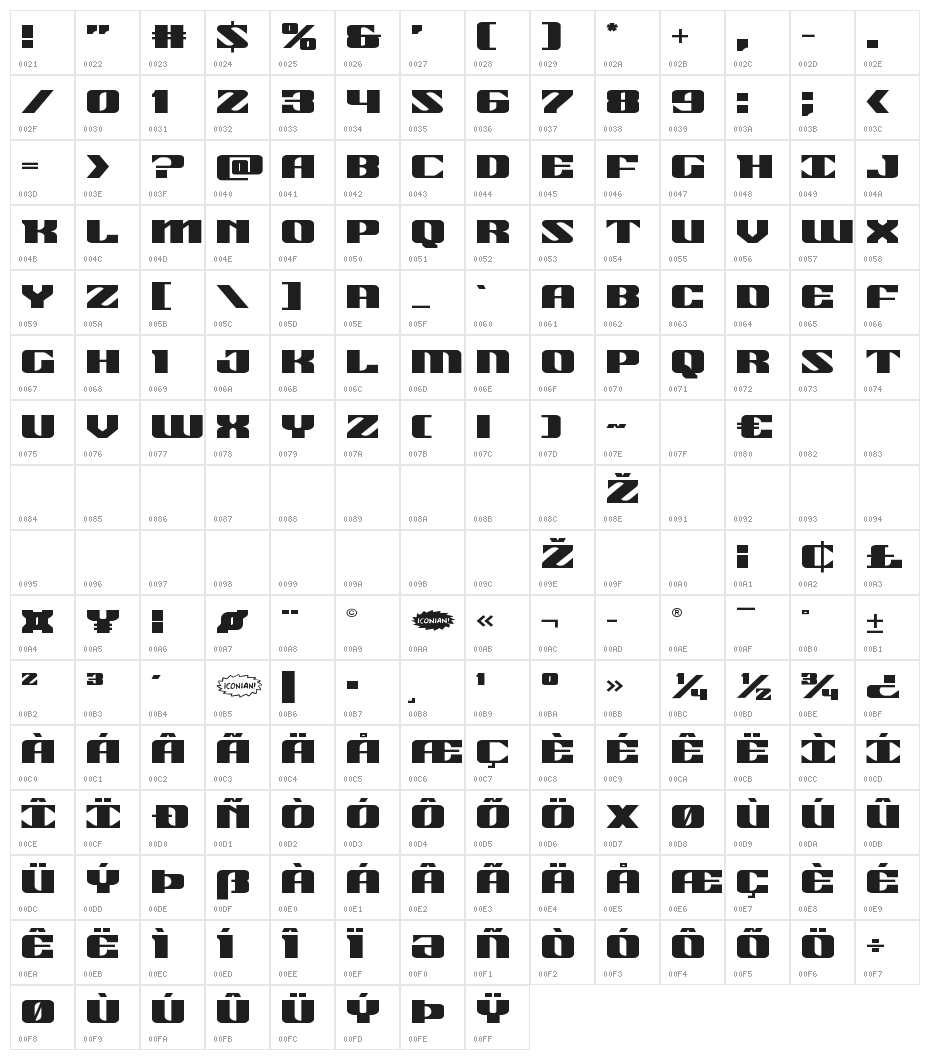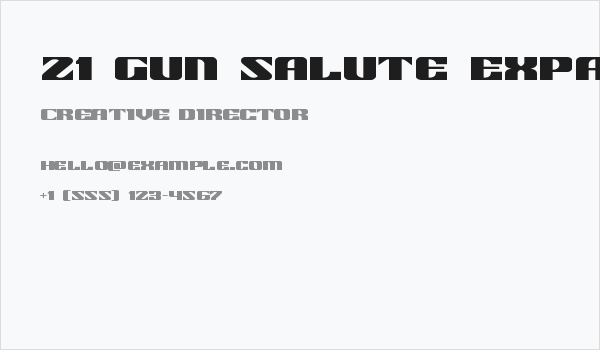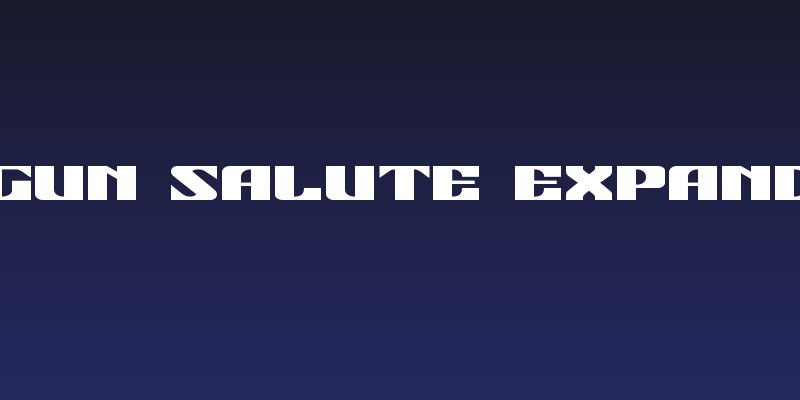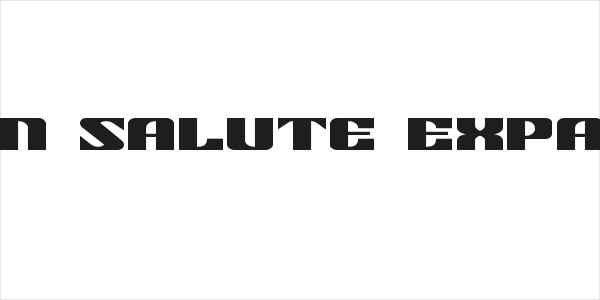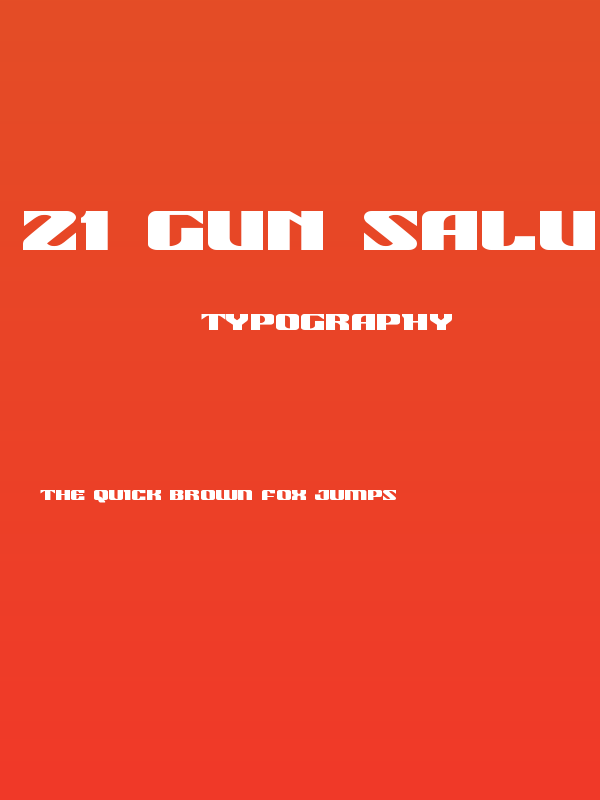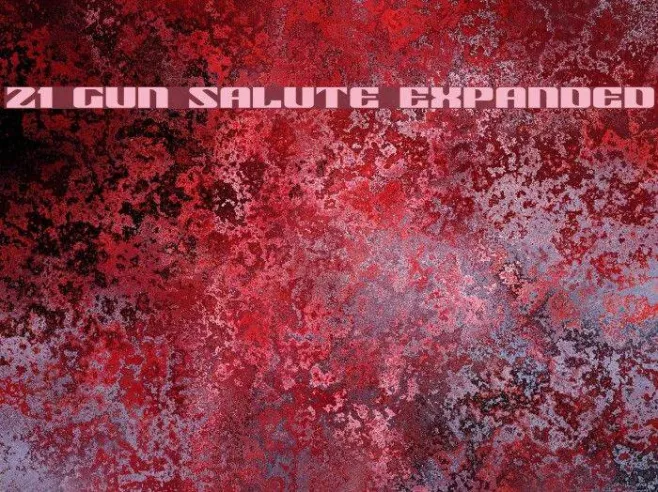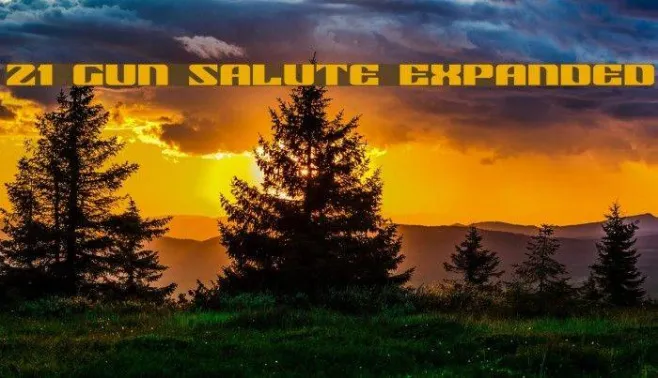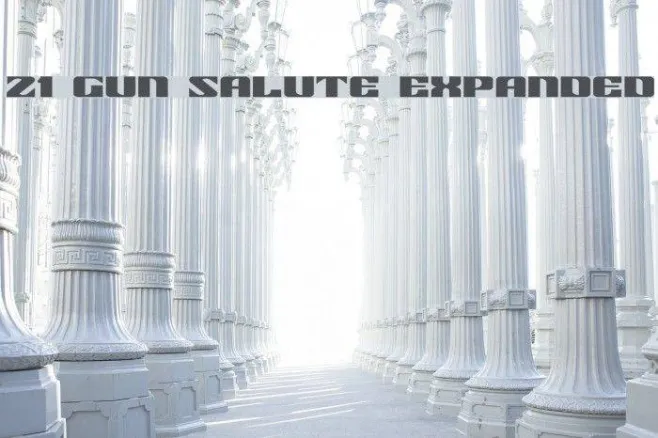
21 Gun Salute Expanded Font
21 Gun Salute Expanded Description
This font features a bold and impactful design with a strong geometric structure. The characters are wide and have a distinct blocky appearance, making them stand out prominently. The uppercase letters are uniform in height, while the lowercase letters maintain a consistent style that complements the uppercase. The numbers and special characters follow the same bold and structured design, ensuring a cohesive look across all elements. The font's unique style is characterized by its angular cuts and sharp edges, giving it a modern and industrial feel. It is well-suited for projects that require a strong visual impact and a contemporary aesthetic.
| Proposed Projects | Ideal for branding, posters, headlines, and any design requiring a strong visual impact. |